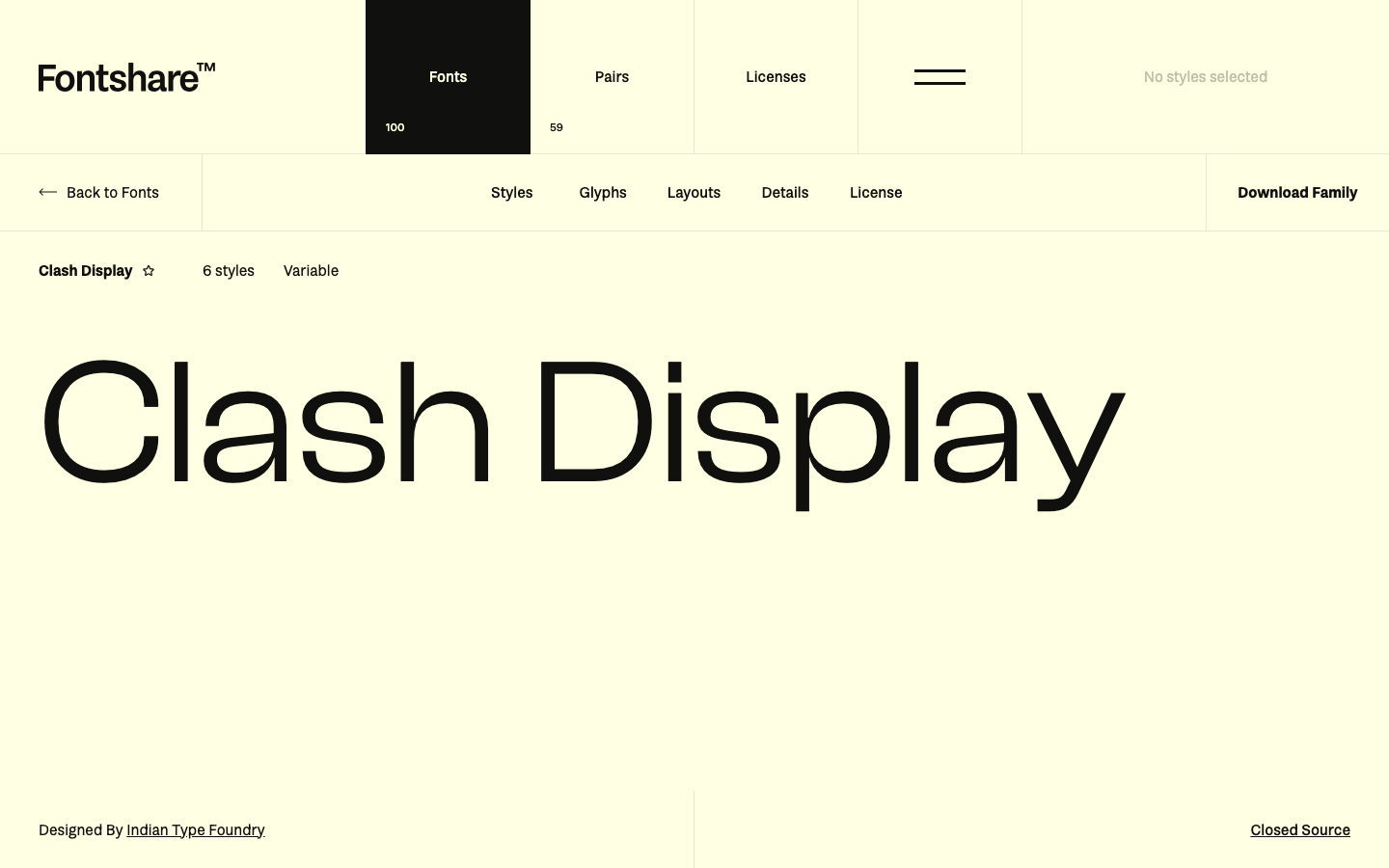
Clash Display vs Codec Pro
Clash Display and Codec Pro are both sans-serif typefaces sharing a tech foundation. Where Clash Display leans display, bold, Codec Pro brings geometric, futuristic. Compare which suits your Branding project.
| Feature | Clash Display | Codec Pro |
Recommended: Clash Display
- display, bold design character
- Suited for Display and Headlines
Consider: Codec Pro
- geometric, futuristic design character
- Suited for Gaming and Ui